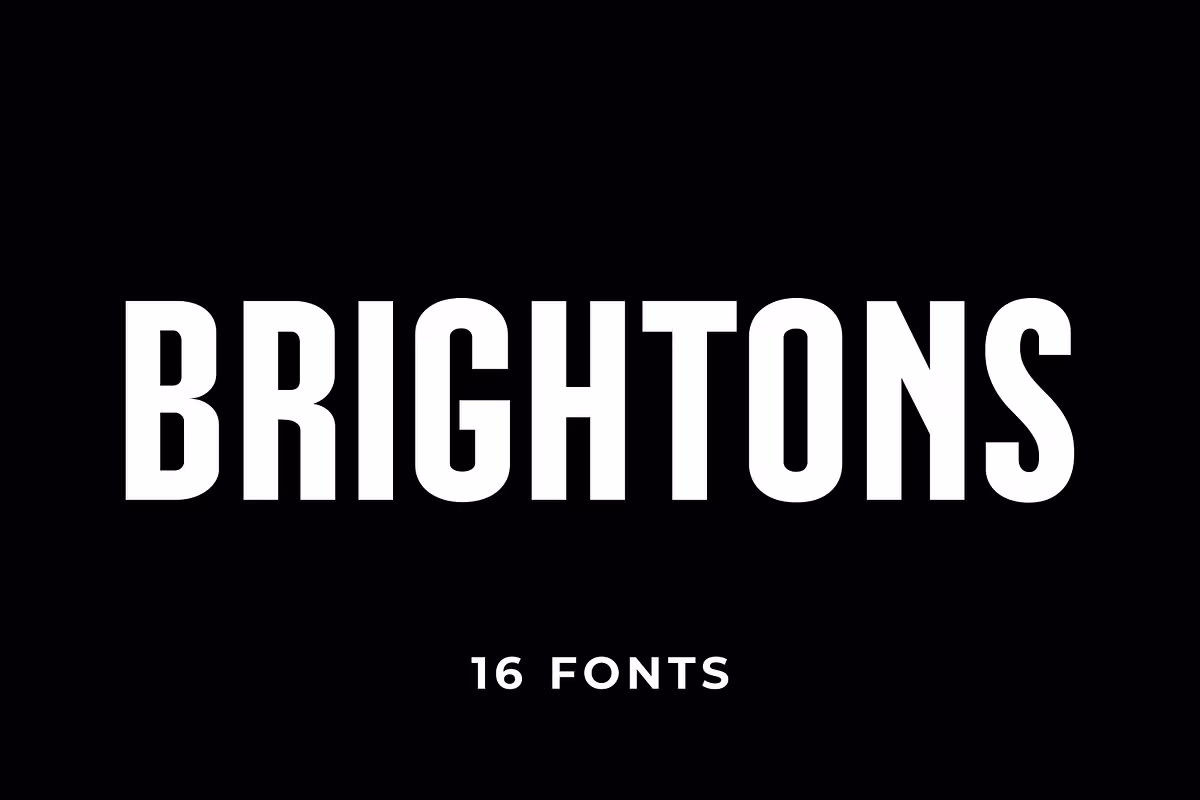
Please note that you must purchase this font for commercial use. You can download BRIGHTONS – A Powerful Sans Serif Font for free, strictly for personal testing purposes only. Brightons is a bold and contemporary sans-serif typeface designed to make a strong impact with its clean lines and geometric structure. With its powerful letterforms and modern aesthetic, BRIGHTONS Font Free Download is perfect for branding, logos, posters, websites, and any design that requires a strong, professional presence.
The font's versatile design allows it to be used in a variety of applications, from corporate branding to creative marketing materials. It includes uppercase and lowercase letters, numerals, punctuation, and multilingual support, ensuring it works for global projects.
Whether you're creating a sleek brand identity or designing for modern tech, BRIGHTONS adds clarity, strength, and professionalism to your typography.